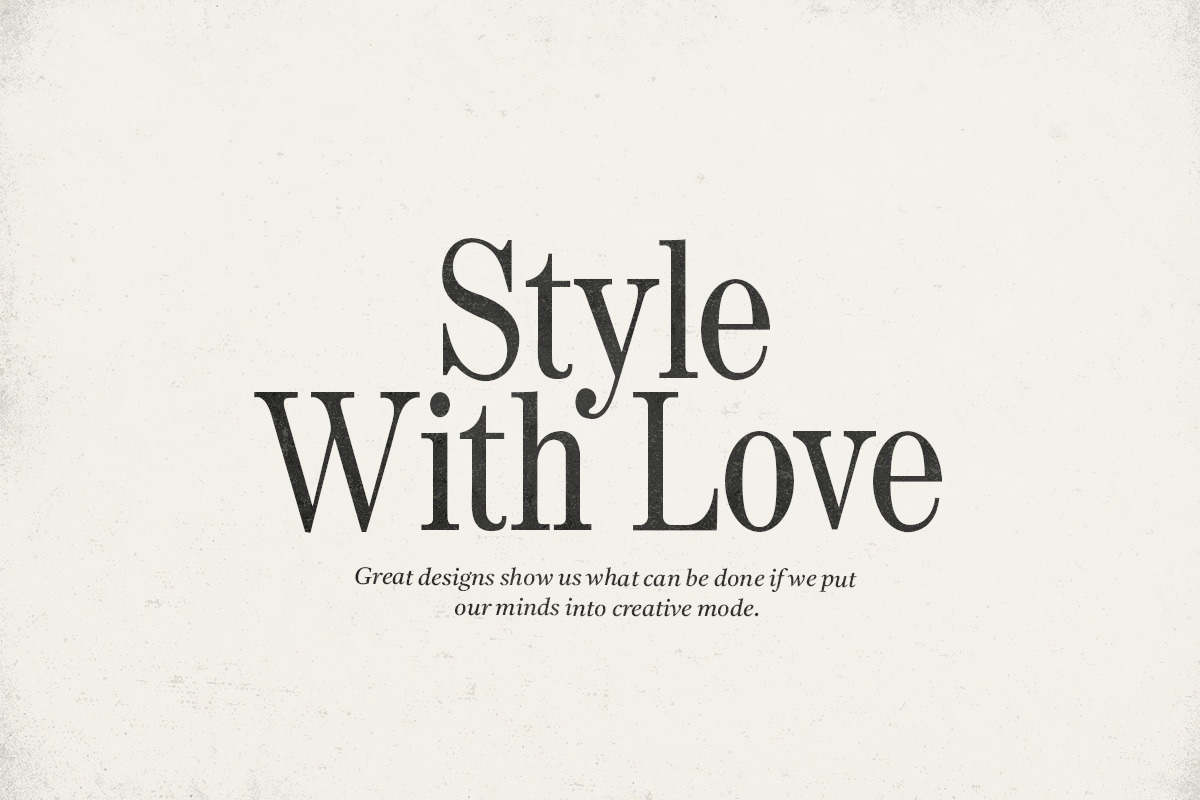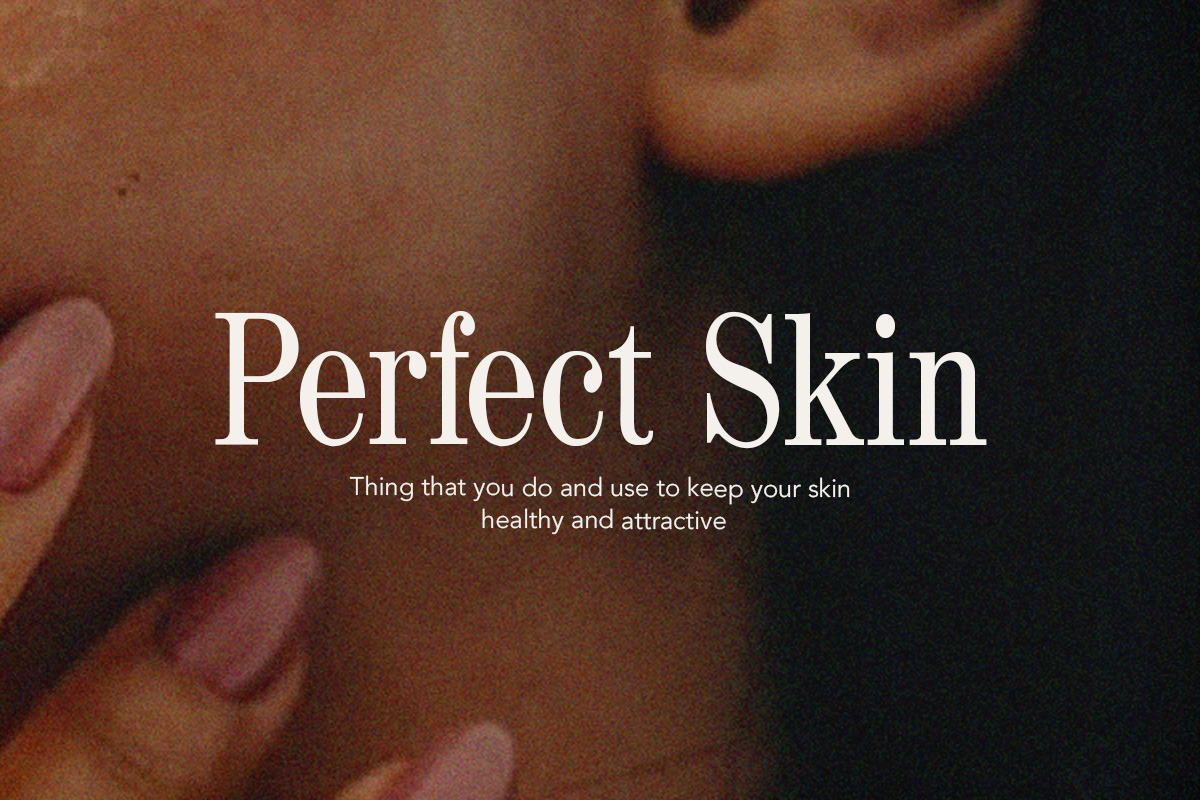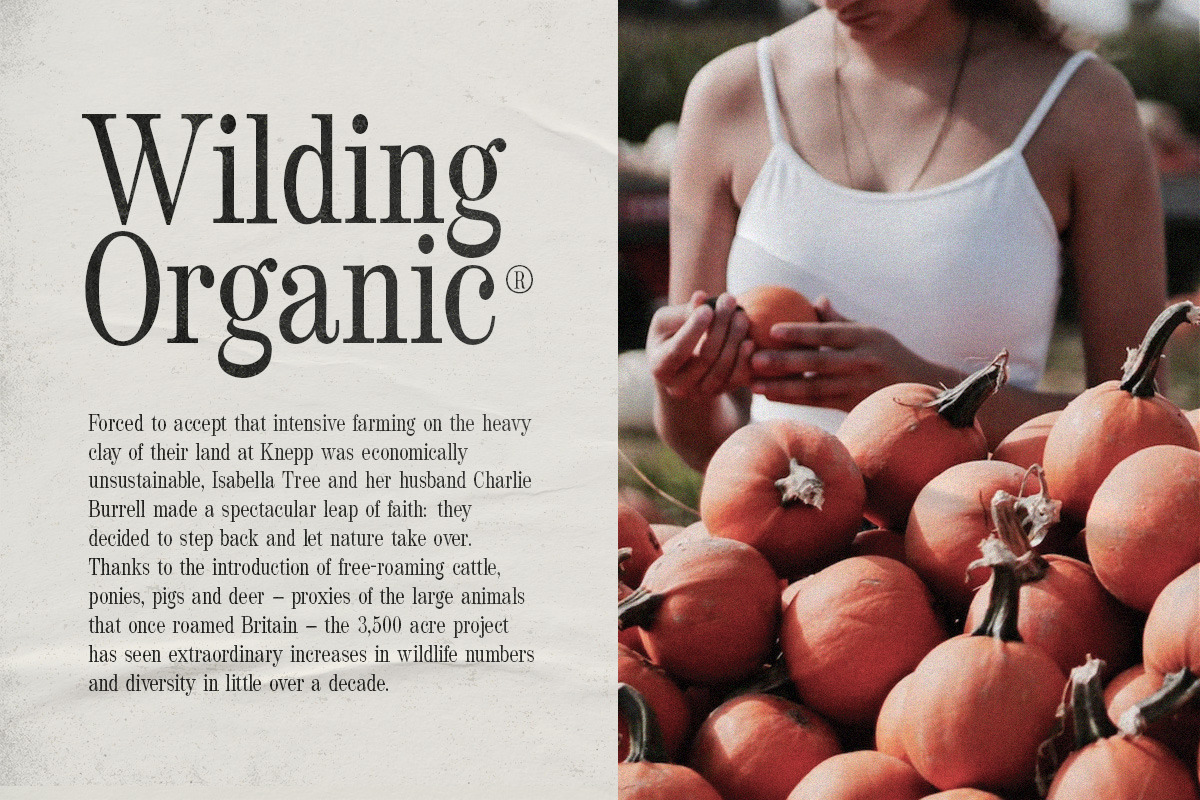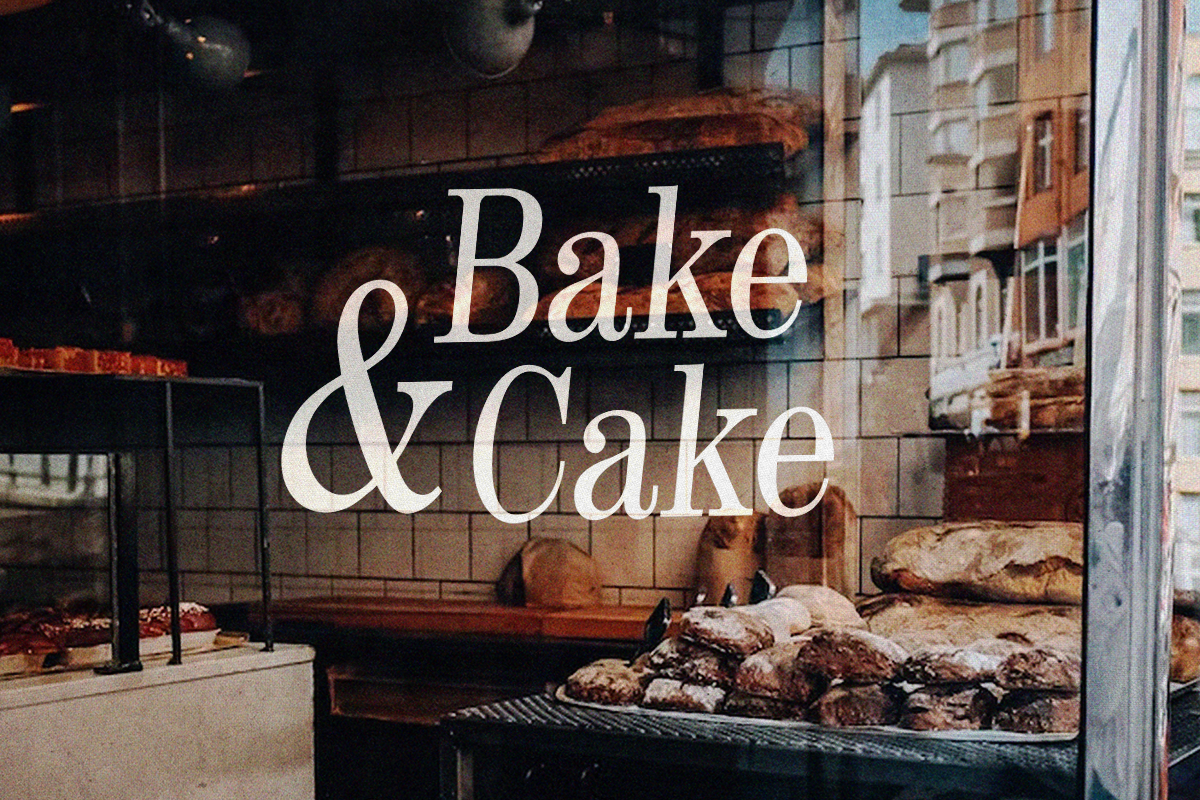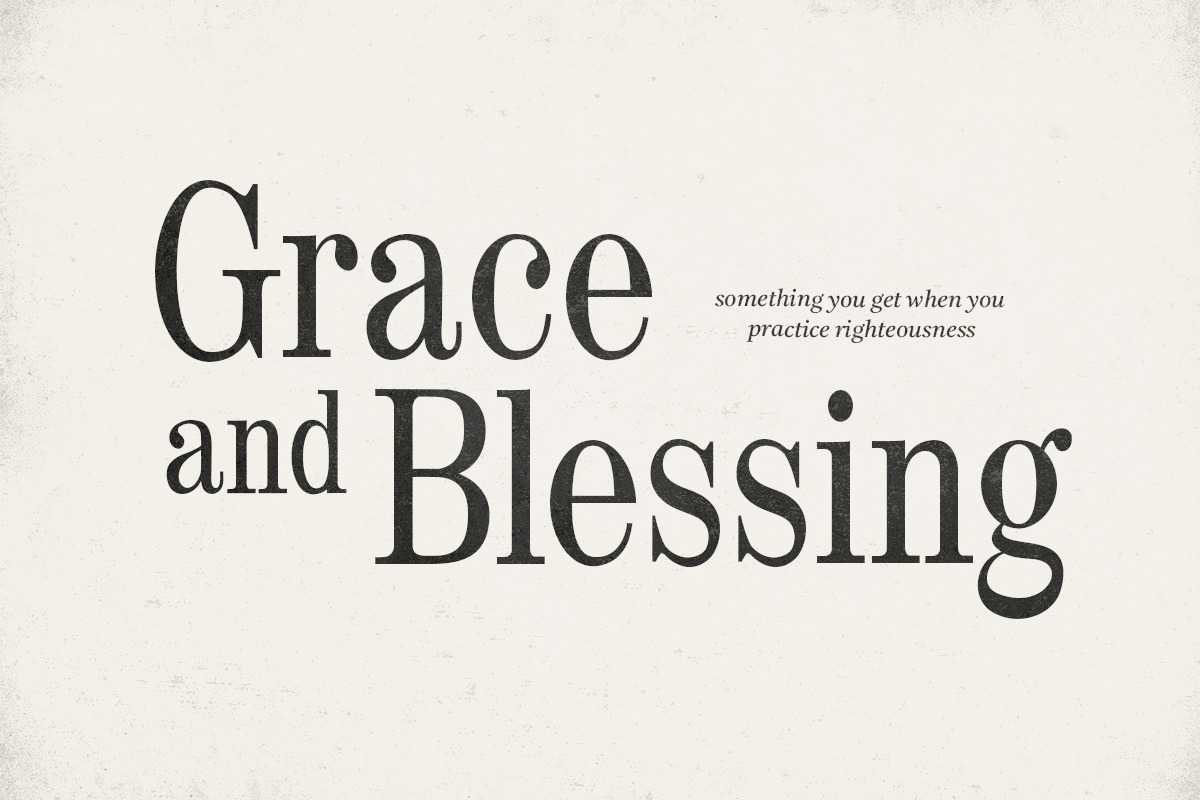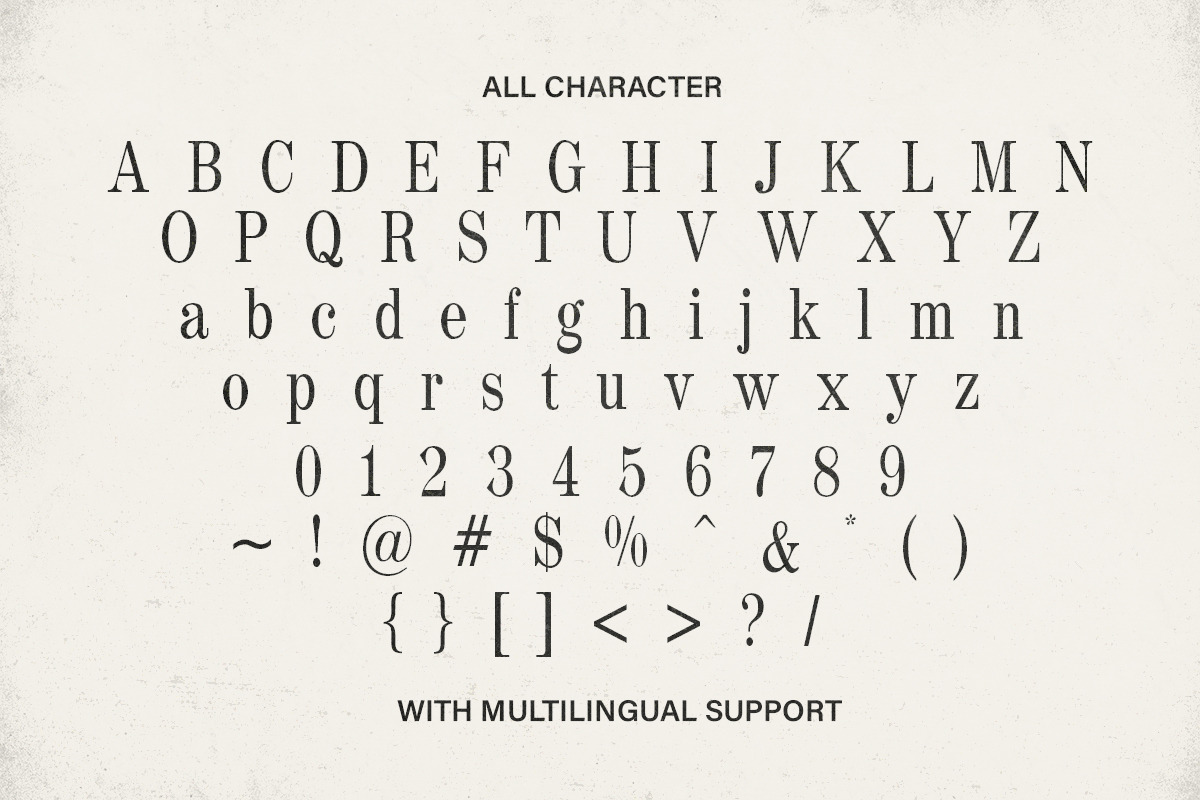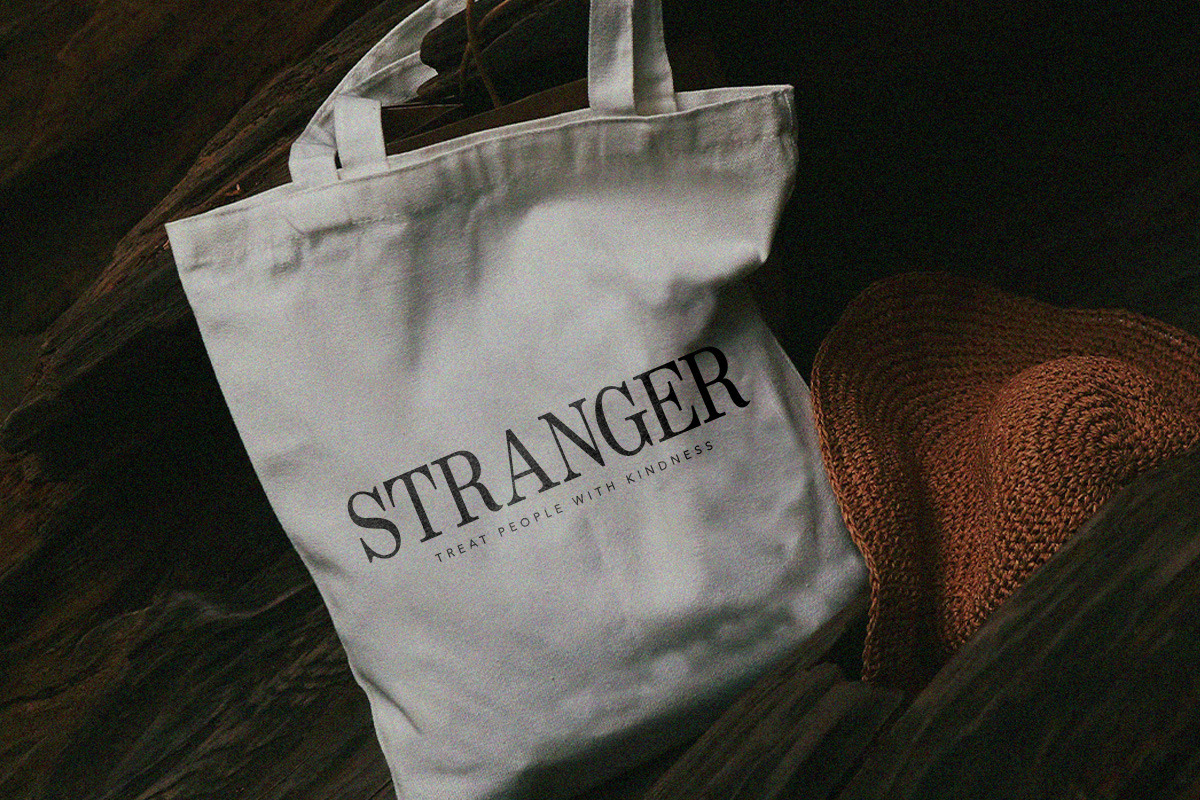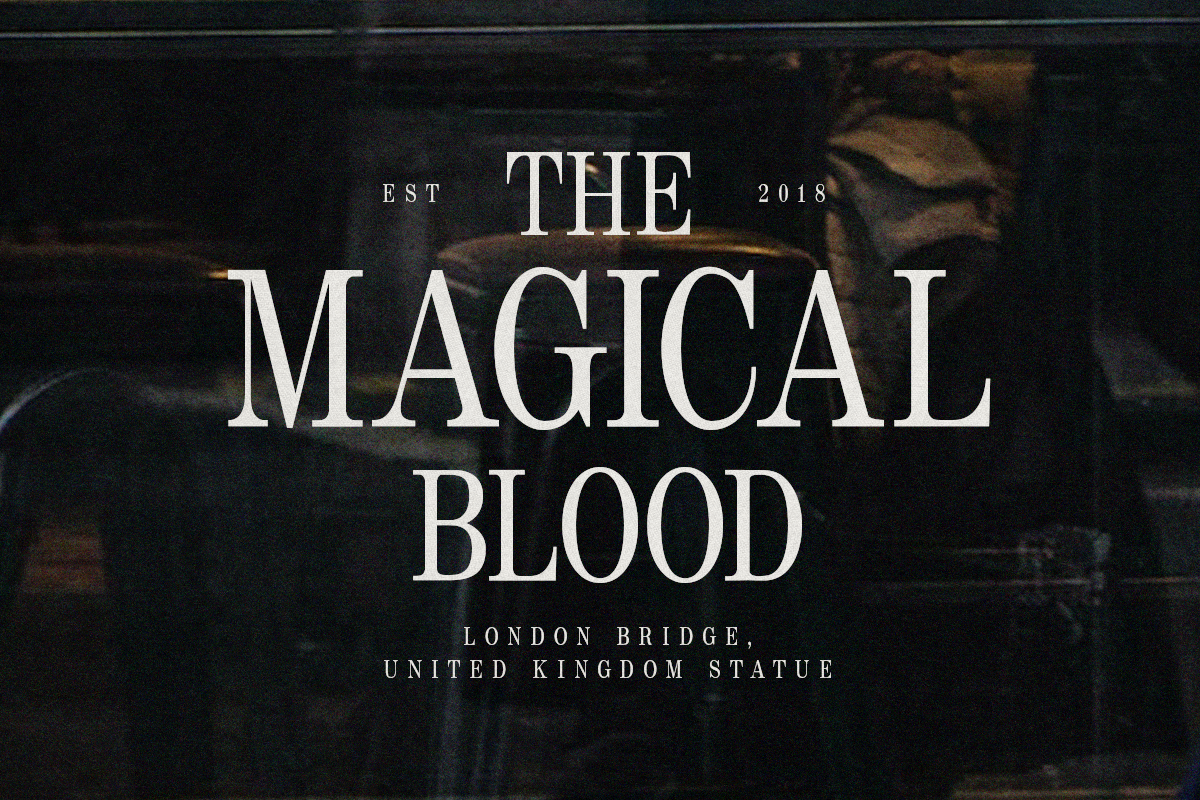
Wildest - Classical Serif
Wildest is a basic serif font. It's casual charm and classy features make it suitable for a wide spectrum of applications. Add it confidently to your projects and you will love the results!